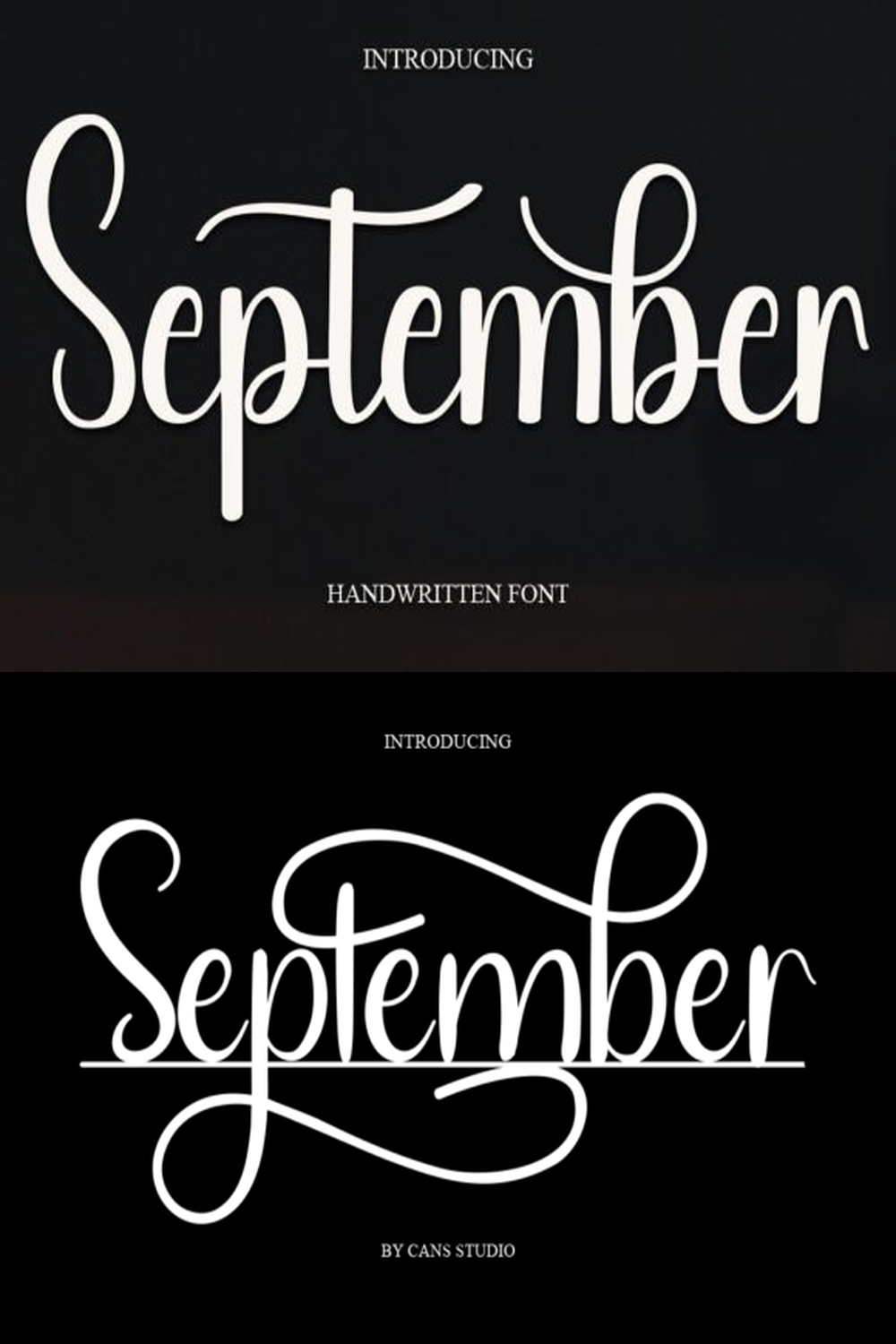
September Font: Elegant Cursive for Wedding & Logo Design
About the September Font
From logos to headlines, the September Font is the perfect choice for making a lasting impression. September is a sweet and cursive handwritten font. This gentle font will look gorgeous on a variety of design ideas. It will add a joyful and romantic touch to each of your projects! Perfectly fit for branding, logo, wedding things, greeting cards, fashion, lookbook, marketing promotion, and any time you want your design to look fancy and elegant but still casual.